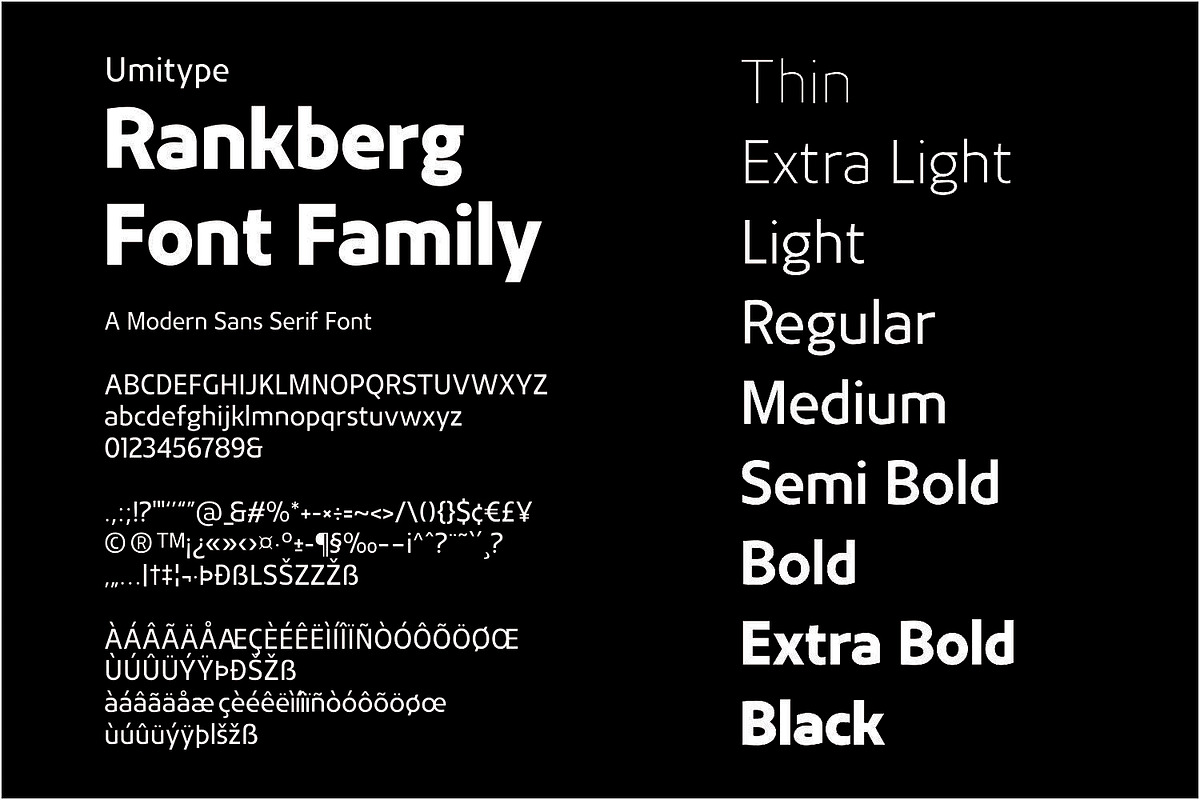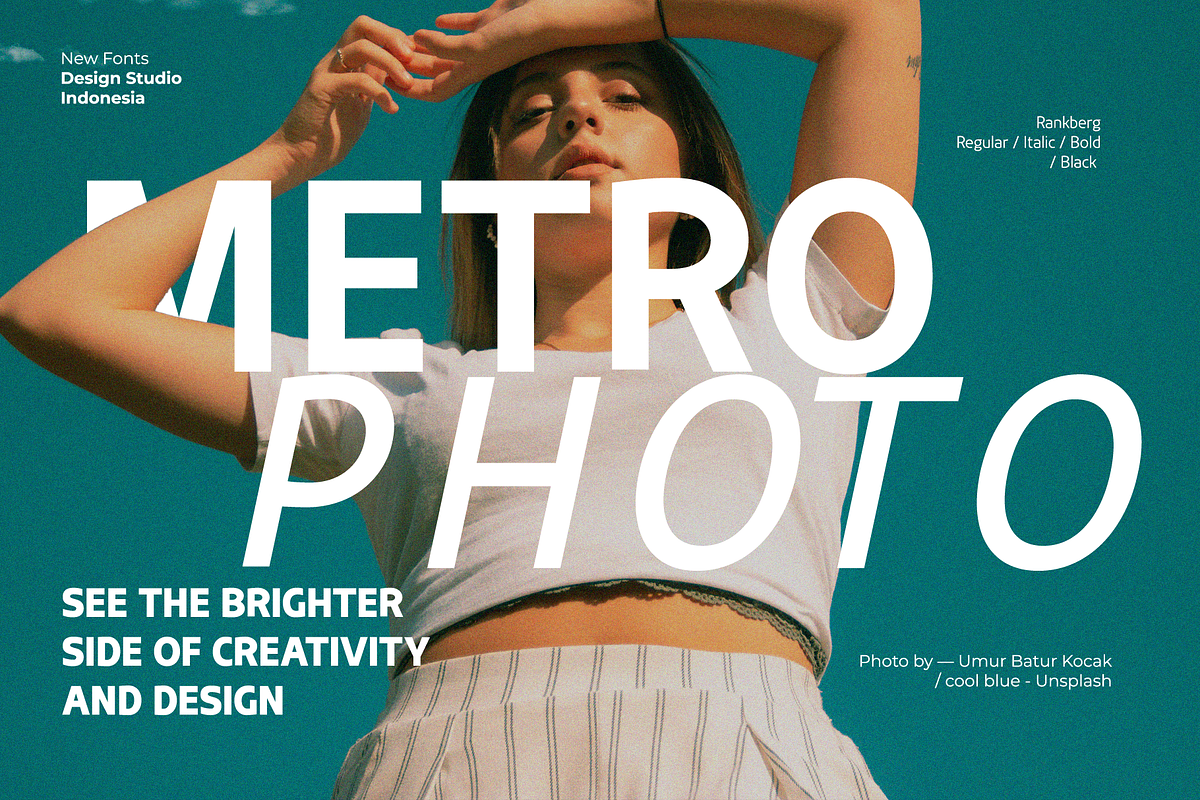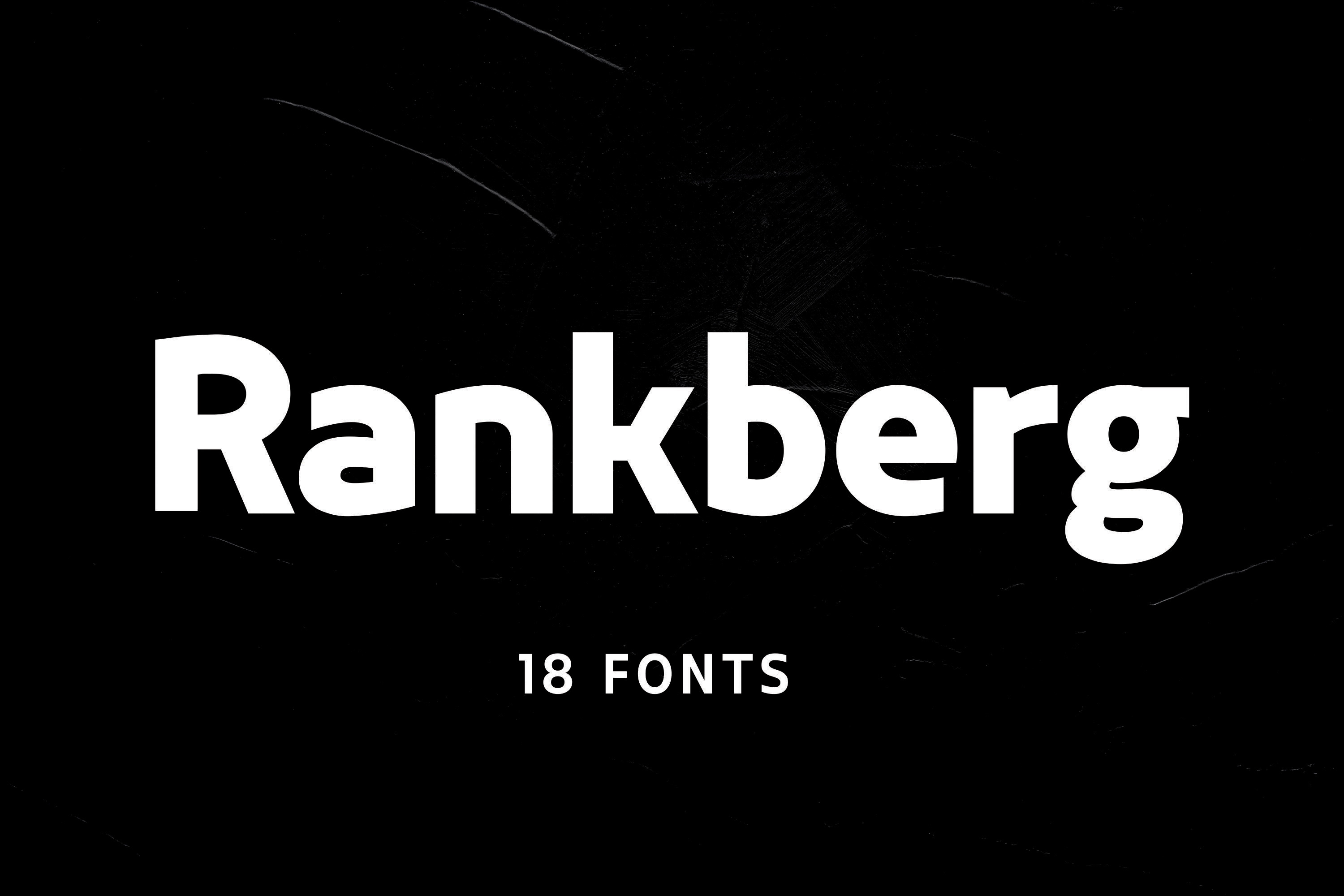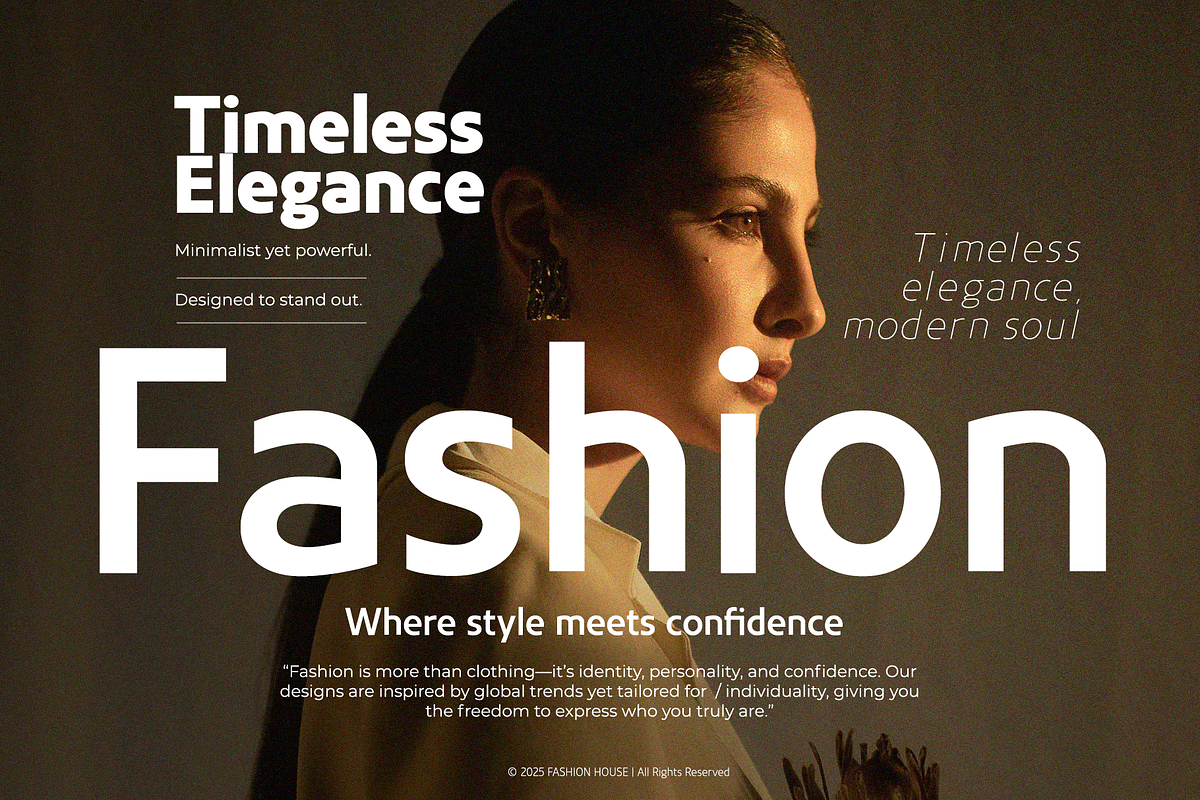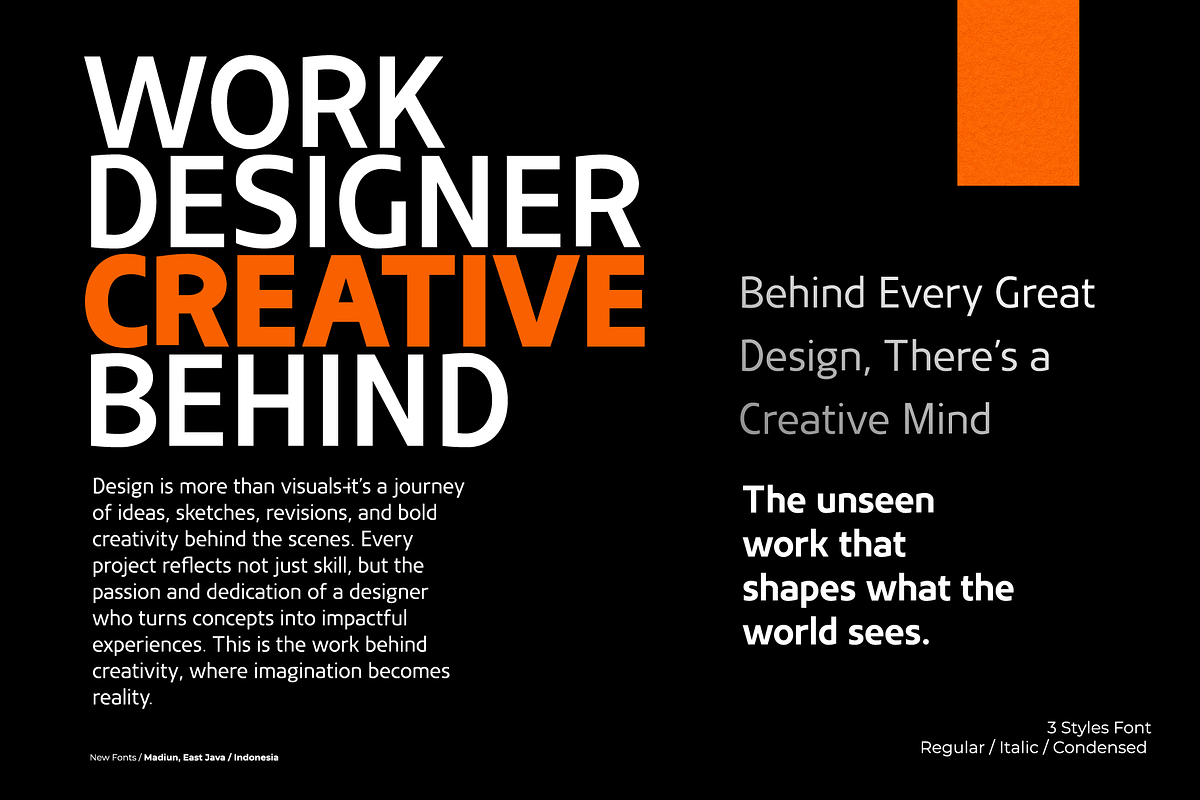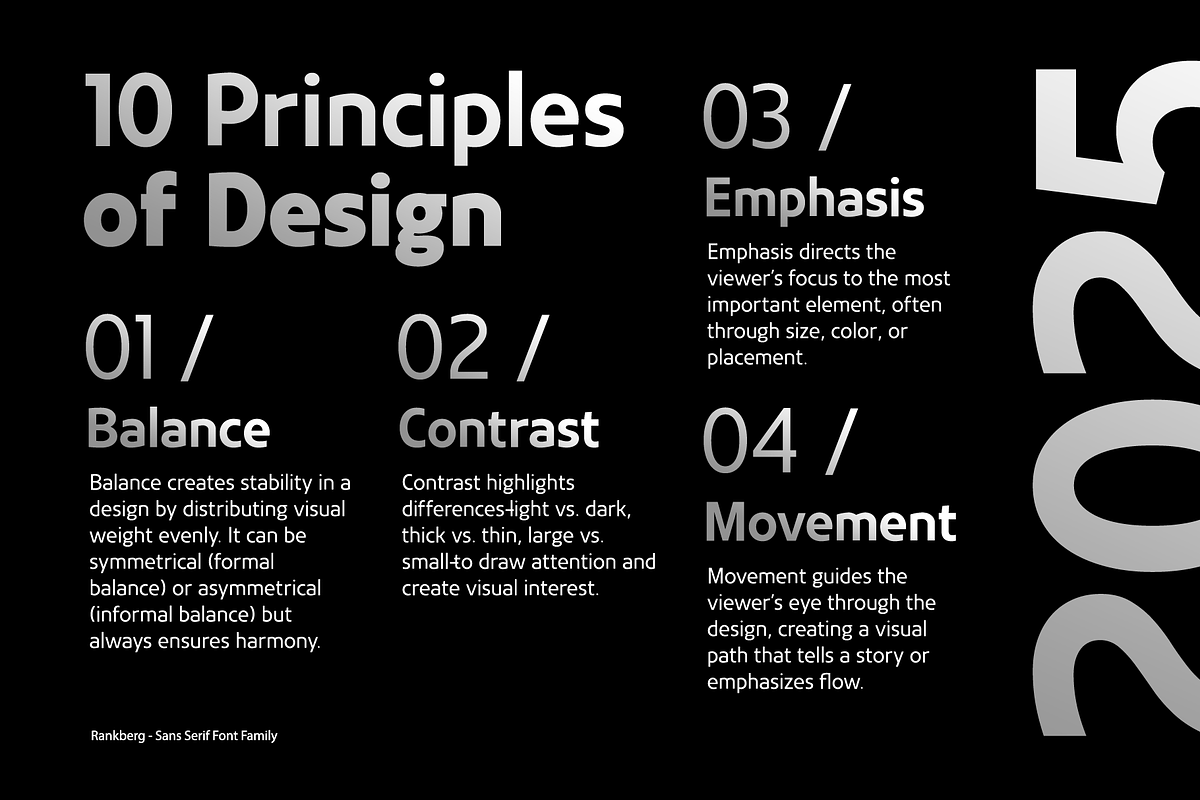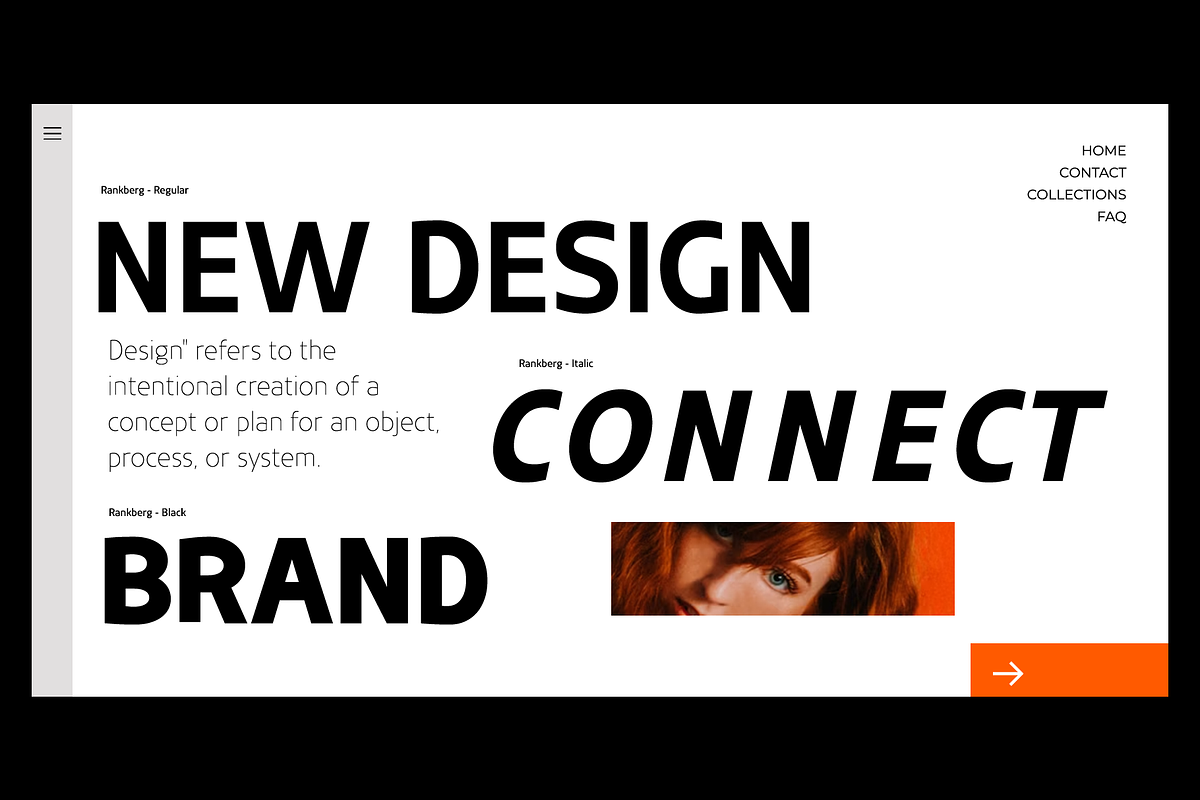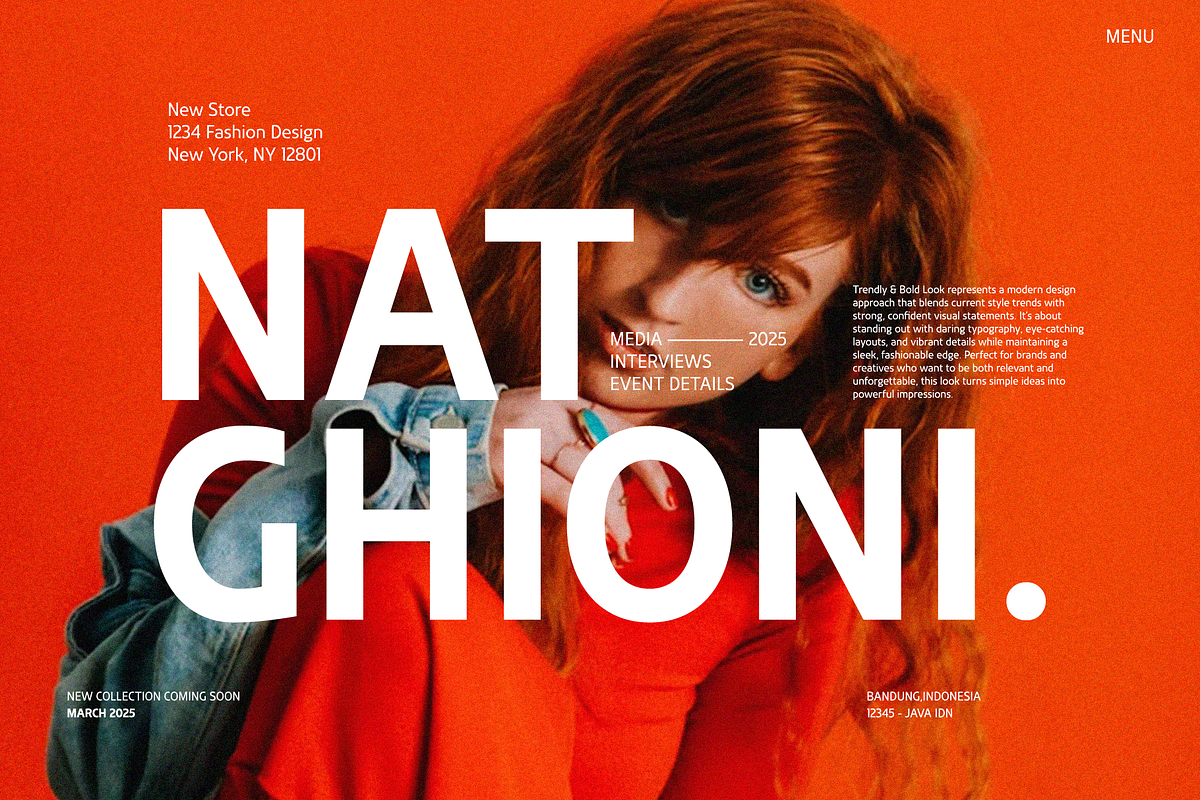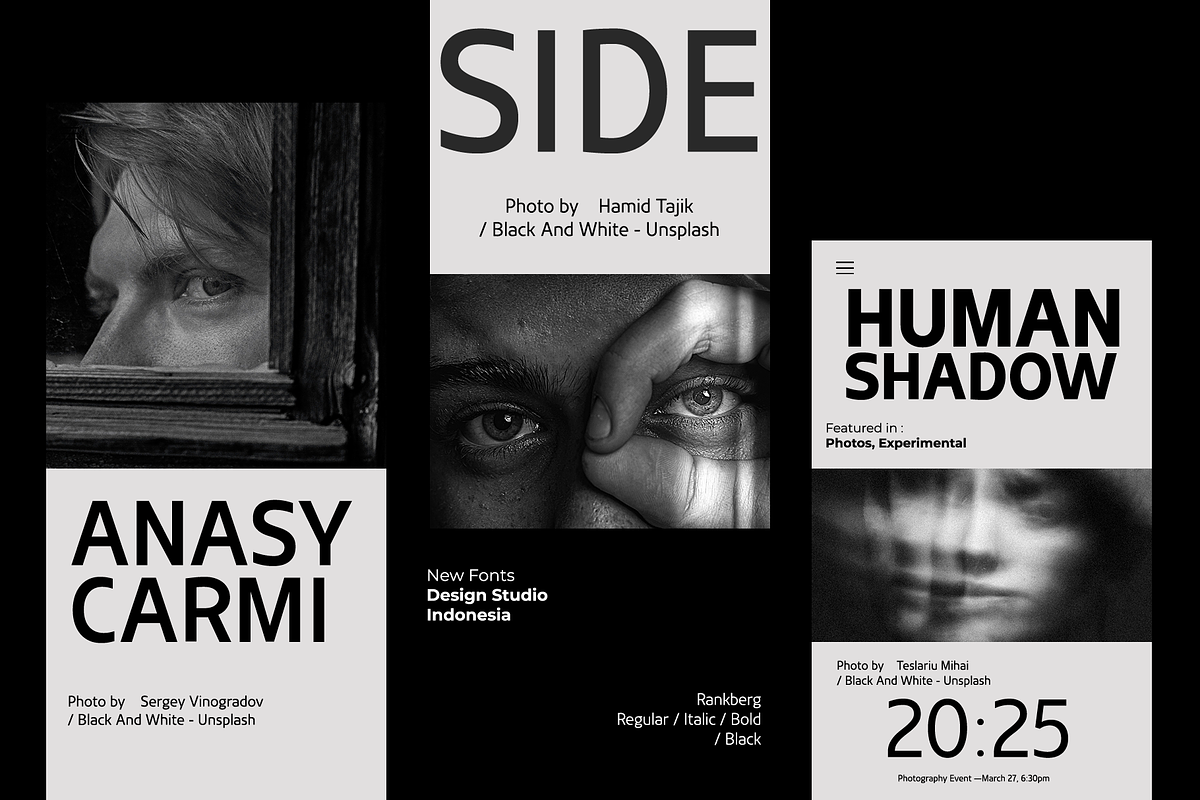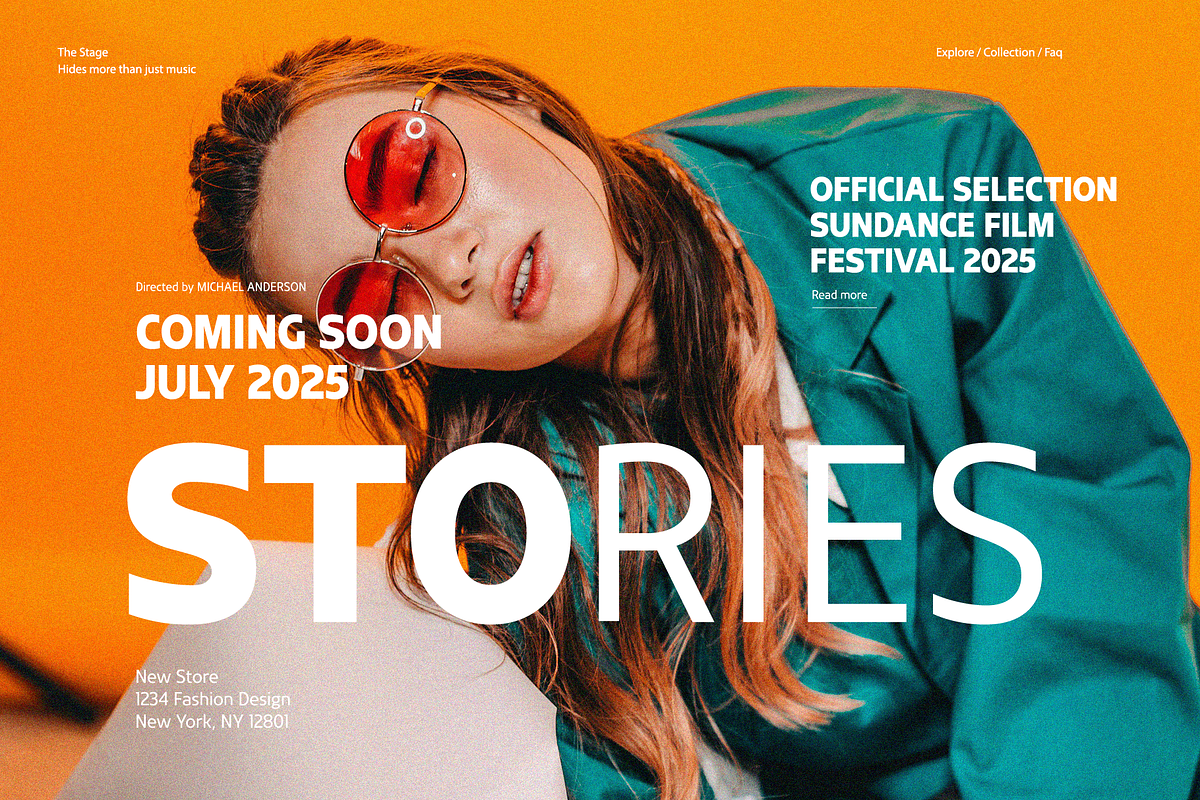
Rankberg - Logo Font Family
Rankberg is a modern bold font family designed to bring strength and clarity to visual communication. Its sans-serif structure emphasizes precision and balance, creating a clean and contemporary look suitable for a wide range of professional applications.
With a full spectrum of weights, from Thin to Black, this typeface provides flexibility for both minimal and bold expressions. Each weight is carefully constructed to maintain consistency, ensuring seamless adaptability across different branding materials.
The geometric proportions and refined letterforms give Rankberg a timeless character. Its bold cuts and smooth curves establish authority, making it an excellent choice for corporate identities, editorial design, and impactful logo creation.
Engineered for readability and sophistication, Rankberg offers versatile functionality that extends beyond logos. It works harmoniously in print and digital environments, delivering a strong visual presence in every format.